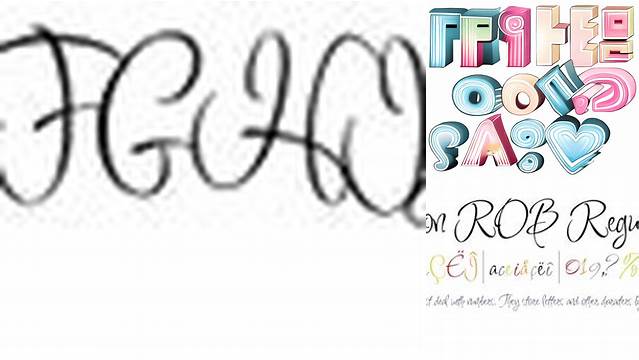
Inspiration Rob Font: Free Download For Creative Designs
Hey everyone! Are you looking to add a unique touch to your designs? Look no further! In this article, we're diving into the world of Inspiration Rob Font and how you can download it for free. This font is a fantastic addition to any designer's toolkit, offering a blend of modern and classic styles that can elevate your projects. So, let's get started and explore the possibilities!
What is Inspiration Rob Font?
Inspiration Rob Font is a beautifully crafted typeface that stands out with its distinct personality and versatility. Its unique design makes it perfect for a wide range of applications, from branding and logos to posters and web design. The font features a harmonious balance between clean lines and elegant curves, giving it a contemporary yet timeless appeal. Whether you're working on a sleek, modern project or something with a more classic feel, this font can be your go-to choice.
One of the key aspects of Inspiration Rob Font is its legibility. The designers have meticulously crafted each character to ensure it remains clear and readable across various sizes and mediums. This is crucial for any font intended for professional use, as it ensures your message is conveyed effectively. The font family often includes multiple weights and styles, such as regular, bold, italic, and more, providing you with the flexibility to create visual hierarchy and emphasize key elements in your designs. Guys, you'll find that this font’s adaptability makes it an invaluable asset for any creative endeavor. Moreover, Inspiration Rob Font often supports a wide range of characters, including ligatures and alternates, which can add a touch of sophistication and uniqueness to your typography. Ligatures are special characters that combine two or more letters into a single glyph, creating a more fluid and aesthetically pleasing appearance. Alternates, on the other hand, offer different versions of the same character, allowing you to fine-tune your typography and achieve the perfect look. This level of detail and attention makes this font a top choice for designers who demand both style and functionality. In essence, Inspiration Rob Font is more than just a typeface; it's a tool that empowers you to express your creativity and bring your vision to life. Its blend of elegance, readability, and versatility makes it an excellent choice for any project that requires a touch of sophistication and style. So, friends, let’s explore where you can find this fantastic font for free!
Why Choose Inspiration Rob Font?
When it comes to choosing a font for your project, the options can seem endless. So, why should you opt for Inspiration Rob Font? The answer lies in its unique combination of style, versatility, and readability. First and foremost, the aesthetic appeal of Inspiration Rob Font is undeniable. Its elegant curves and clean lines create a visual harmony that can elevate any design. Whether you're crafting a logo, designing a website, or creating marketing materials, this font brings a touch of sophistication and professionalism. It’s the kind of font that makes your work stand out, capturing the attention of your audience and leaving a lasting impression.
Secondly, the versatility of Inspiration Rob Font is a major advantage. It seamlessly adapts to various design contexts, making it a reliable choice for different projects. From corporate branding to creative campaigns, this font maintains its charm and effectiveness. The availability of multiple weights and styles within the font family further enhances its versatility. You can use different weights to create visual hierarchy, emphasize key words, and add depth to your designs. The italic style adds a touch of elegance and can be used to highlight quotes or add a personal touch. This flexibility means you can use Inspiration Rob Font across your entire project, ensuring a consistent and cohesive visual identity. Another key factor is the readability of Inspiration Rob Font. A beautiful font is only effective if it's easy to read. This font is designed with legibility in mind, ensuring that your message is clear and accessible. The characters are well-spaced and distinct, making them easy to read even at small sizes. This is particularly important for web design and mobile applications, where readability is crucial for user experience. Moreover, Inspiration Rob Font often includes ligatures and alternates, adding a layer of sophistication and uniqueness to your typography. These subtle details can make a big difference in the overall look and feel of your design, giving it a polished and professional finish. Lastly, choosing Inspiration Rob Font is about making a statement. It’s a font that speaks volumes about your attention to detail and your commitment to quality. It conveys a sense of creativity and professionalism, making it an excellent choice for businesses and individuals alike. So, chaps, if you want a font that combines style, versatility, and readability, Inspiration Rob Font is definitely worth considering. It’s a font that can help you bring your creative vision to life and make your designs truly shine. Now, let's talk about how you can get your hands on this fantastic font for free!